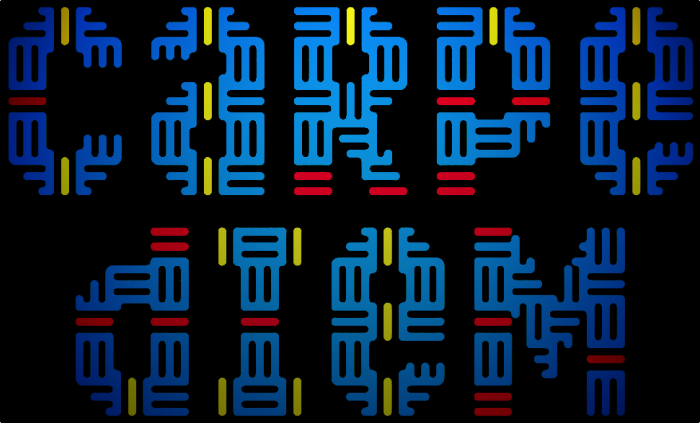
Interchangeable Uppercase & Lowercase. Try your fun.
(This was a thorn that would not let me do other things for a while).
Woven letter shapes. Nice.
A font for crafts people ;) and as a weaver I need it in my favs :) A nice idea and very effective. It reminds me of the FSn "Computer Guts". Meek should arrange an Arts-and-Crafts comp/font-out ;)
Eth? Thorn?
@elmoyenique - I'm sorry I missed this one back in June.  The derivation of the shapes "cut" from a common pattern is very effective.  Congratulations on this wonderful design!  :^)
It looks like a scripted font, but it's nicer, good job!